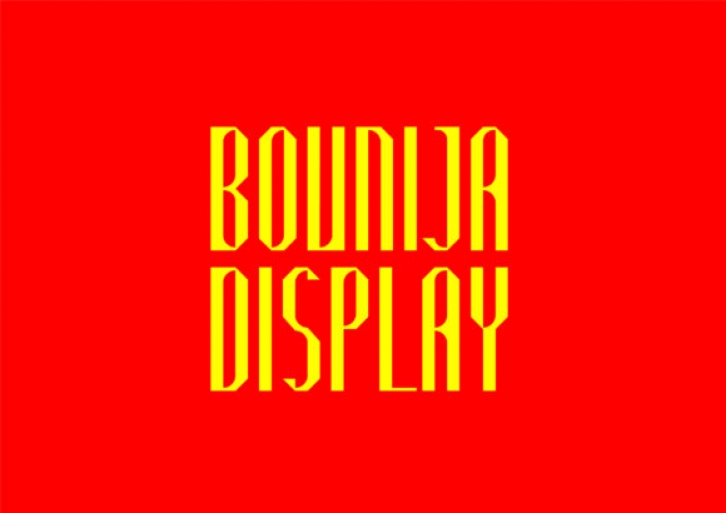
Bounija Display feels equally charming and elegant. Clean and a little bit quirky, this display font is the perfect fit for all of your logos, branding, social media, and crafty DIY projects.